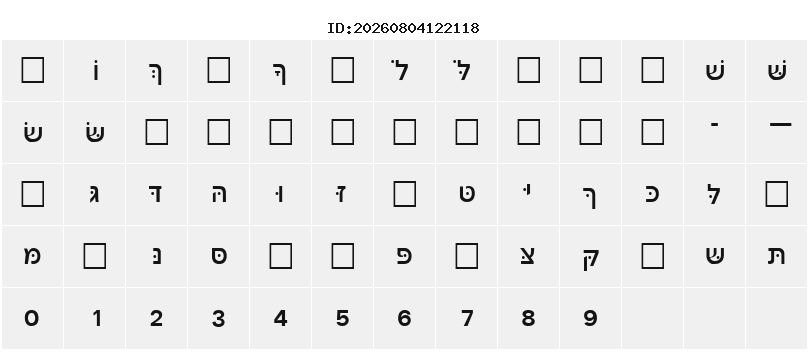
About Noam New Hebrew.ttf
Noam New Hebrew.ttf is a modern, elegant sans-serif font designed for ultimate readability and visual harmony. Perfect for branding, headlines, web design, and print materials.